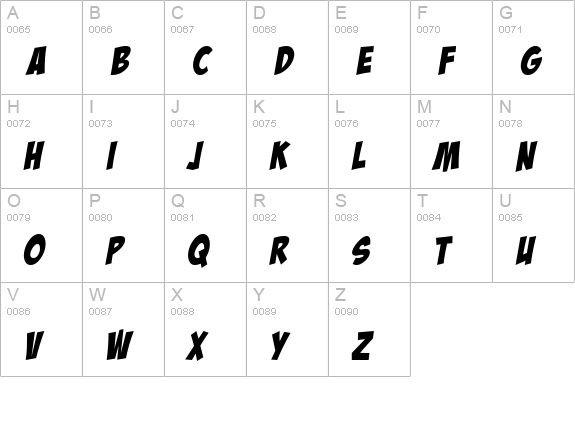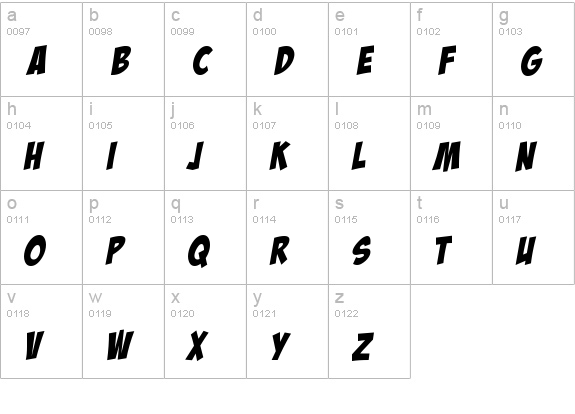
BadaBoom BB Font Details
BadaBoom BB is a fun and playful font that is sure to add a burst of energy to any project. With its bold and dynamic letterforms, this font is perfect for creating attention-grabbing headlines, eye-catching logos, and vibrant designs. The unique and quirky style of BadaBoom BB makes it stand out from the crowd, giving your work a distinctive touch. Whether you're designing posters, flyers, or social media graphics, this font will bring a sense of liveliness and excitement to your creations. And the best part? BadaBoom BB is completely free! That's right, you can freely download this amazing font at FontsMarket.com. No need to worry about breaking the bank or searching for expensive alternatives. BadaBoom BB is available for everyone to enjoy, making it accessible to designers, students, and enthusiasts alike. So why wait? Add some pizzazz to your projects with BadaBoom BB. Download this free font today and let your creativity explode!